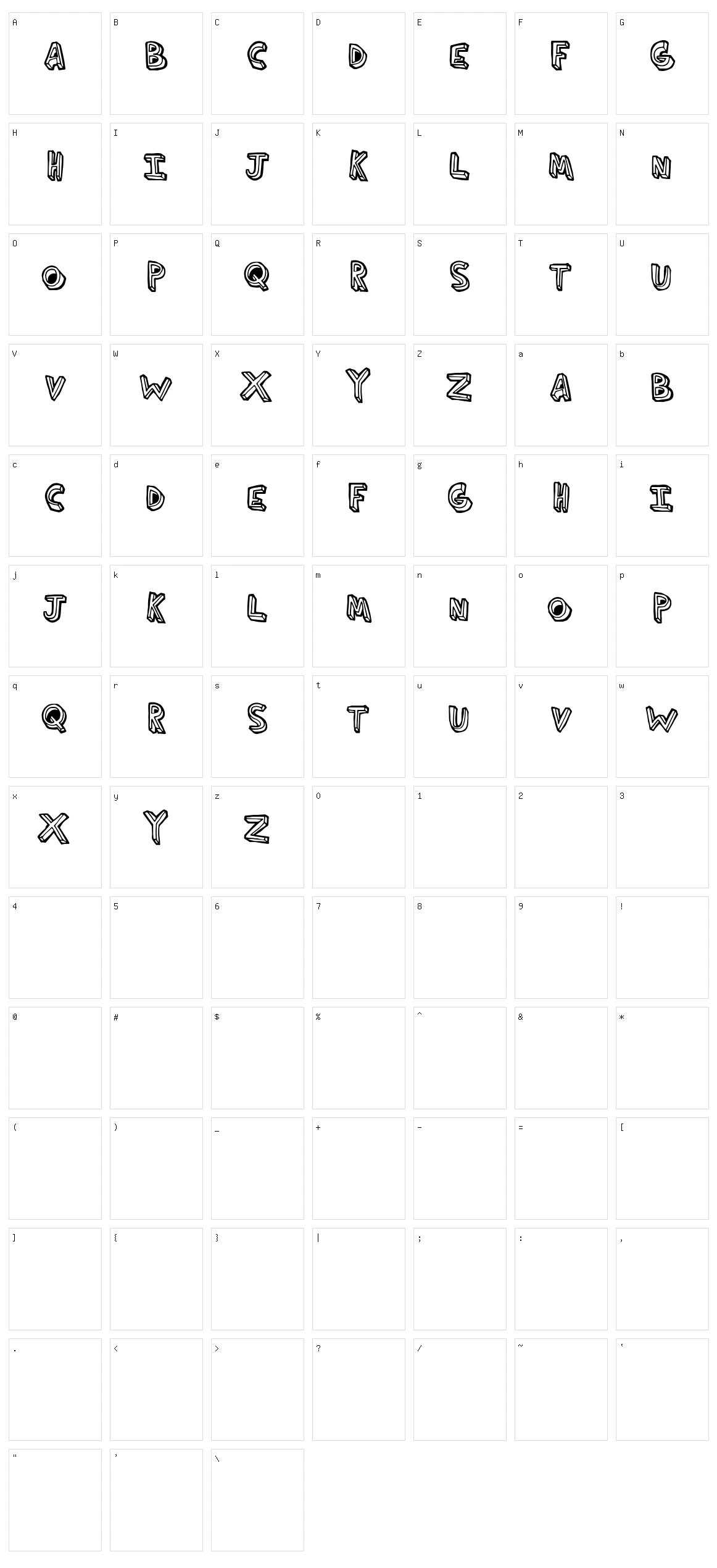
The free font Third Hand is carefully designed by Xerographer Fonts, showcasing a thoughtful balance of creativity and usability and falls under the Cartoon font style. When you download the ZIP file, it contains only 41.53 KB of font files, making it lightweight and quick to download. Please review the license details below to understand permitted usage and distribution rights. If license information is not available, we recommend using this font for personal projects only or contacting the author directly for commercial usage permissions.